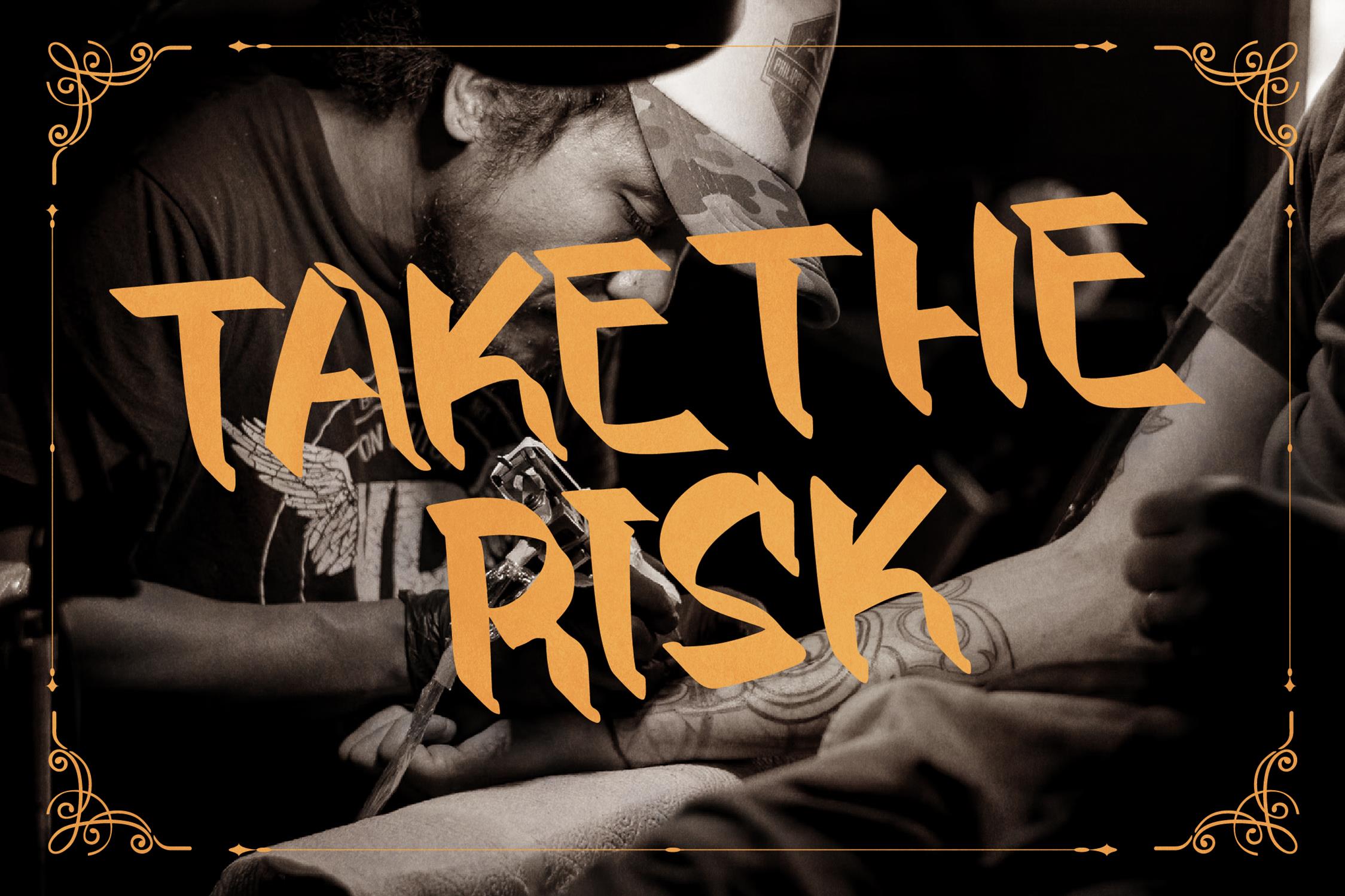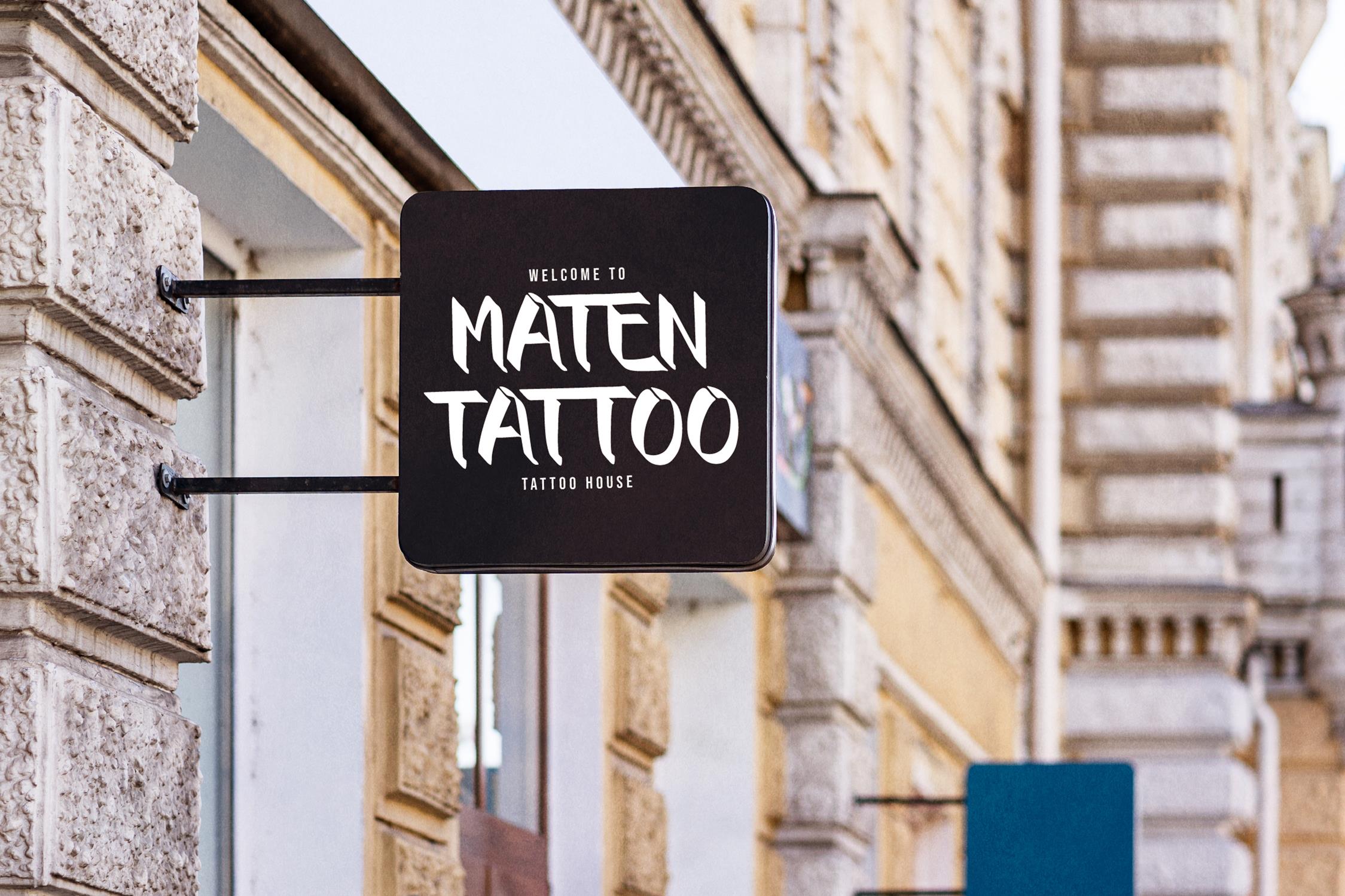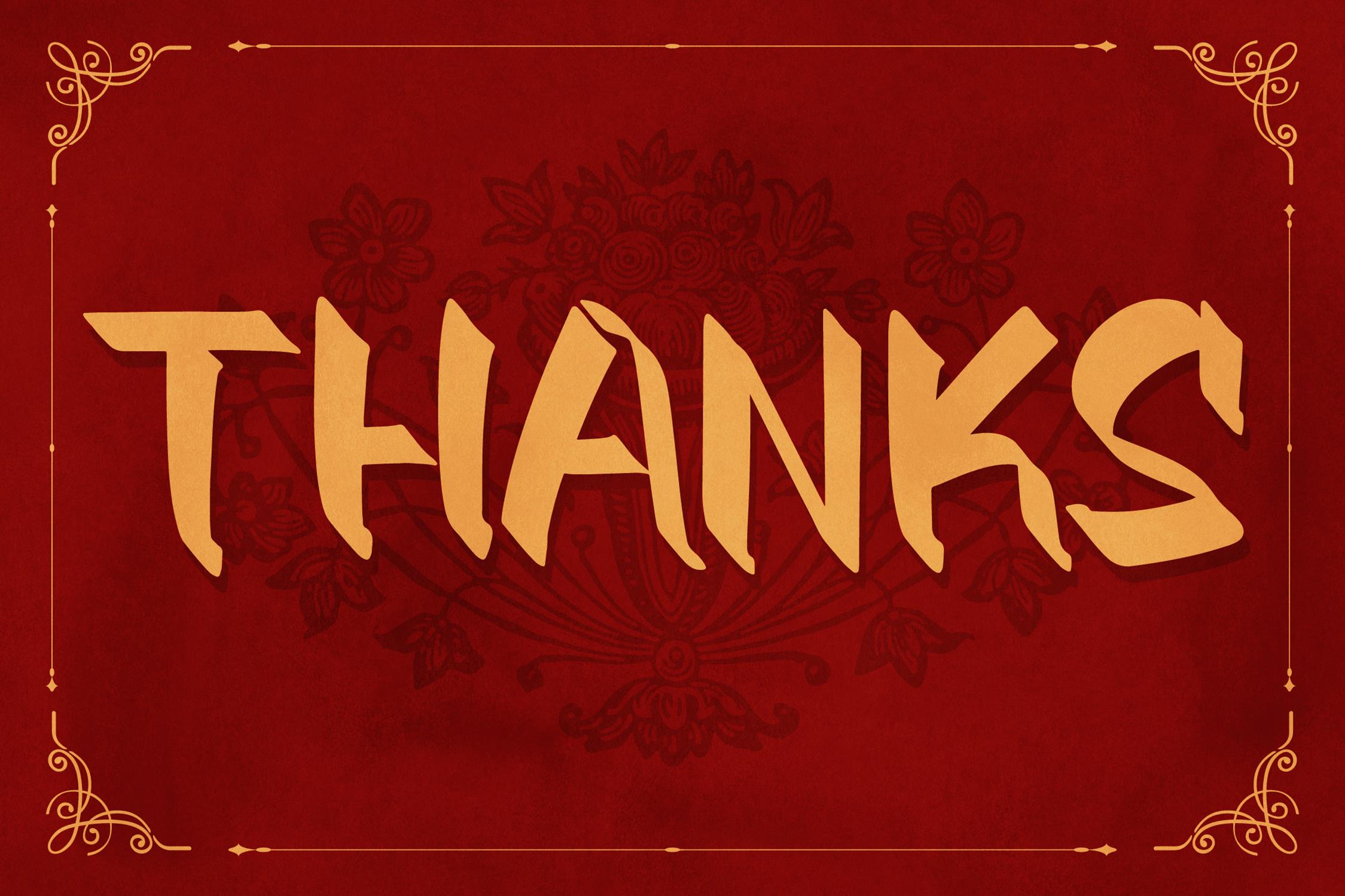
GOTTEN Font
GOTTEN Display Font
It’s display brush font, suitable for any projects such as: logos, branding projects, homeware designs, product packaging, mugs, quotes, posters, shopping bags, t-shirts, book covers, name card, invitation cards, greeting cards, label, photography, watermark, special events, and all your other lovely projects that need a beautiful script taste.